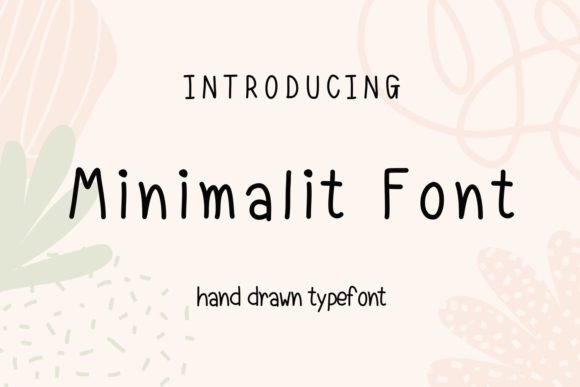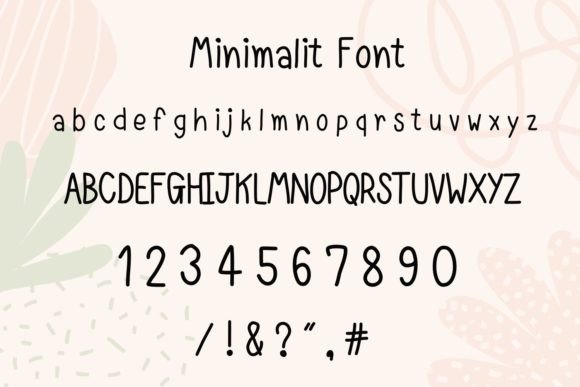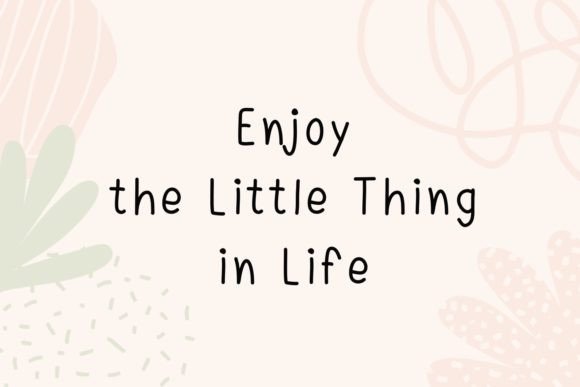
Minimalist Font
About Minimalist Font
“Minimalist: Where Clean Simplicity Meets Natural Elegance in Handwritten Typography
Introducing Minimalist, a font that embodies the essence of clean simplicity and natural elegance. With its effortless handwritten style, Minimalist offers a versatile and timeless appeal, making it the perfect choice for a wide array of creative applications. Whether you’re designing greeting cards, crafting headlines, or working on any project that demands a casual and approachable touch, Minimalist adds a sense of understated sophistication, elevating your designs to a new level of aesthetic charm.
The beauty of Minimalist lies in its clean and natural handwriting, capturing the essence of simplicity with a touch of elegance. Its fluid strokes and carefully crafted letterforms create a sense of ease and authenticity, adding a personal and genuine touch to your projects. Imagine your greeting cards adorned with Minimalist’s effortless script, conveying heartfelt messages with grace and sincerity. Picture your headlines featuring its clean lines, creating a sense of clarity and sophistication. With Minimalist, your designs breathe with a casual yet refined feel, making them visually appealing and inviting.
One of Minimalist’s standout features is its versatility. Its clean and natural design allows it to seamlessly adapt to a wide spectrum of applications. Whether you’re working on branding materials, web designs, social media posts, or any creative project that requires a touch of casual elegance, Minimalist effortlessly fits into the design landscape, enhancing your visuals with its understated charm.
Moreover, Minimalist is more than just a font; it’s an invitation to simplicity and authenticity. Its handwritten style evokes a sense of genuine connection, making it a favorite choice among designers and individuals seeking a font that feels approachable and warm. Its presence adds a layer of depth and character to your designs, making them relatable and engaging.
In a world where authenticity and simplicity resonate, Minimalist helps you make a statement. It speaks the language of clean simplicity and natural elegance, resonating with those who appreciate the beauty of handwritten artistry. Whether you’re designing for personal expression or professional projects, Minimalist becomes your trusted companion, guiding you toward design excellence.
So, why settle for ordinary when you can embrace the extraordinary with Minimalist? Let this clean and natural handwritten font be the muse for your creative expressions, and watch as your projects come to life with simplicity, elegance, and genuine authenticity. Let your creativity flow, and let Minimalist be the brushstroke that paints your ideas into visually captivating masterpieces, leaving a lasting impression on the world.”